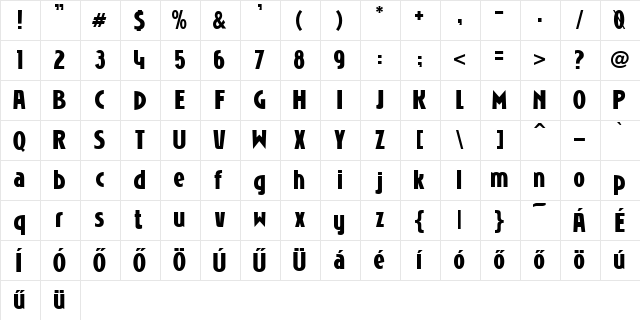
Niobium Regular Font Preview
Niobium Regular
Niobium Regular Font Details
Design Context for Niobium Typeface
Niobium is a composed and adaptable typeface that performs quietly and consistently across a wide range of design contexts.
Pro Tip: Use Niobium in both headline and body roles to test its range before committing to a single application.